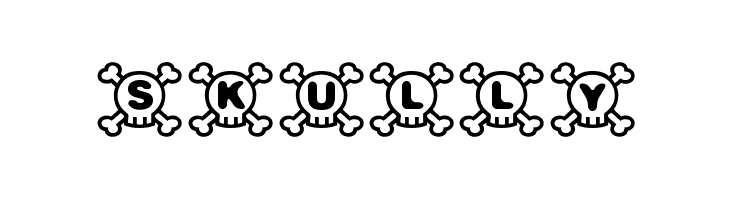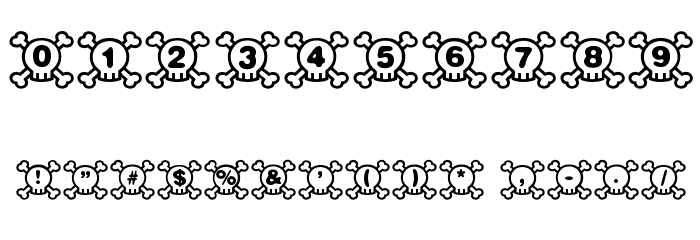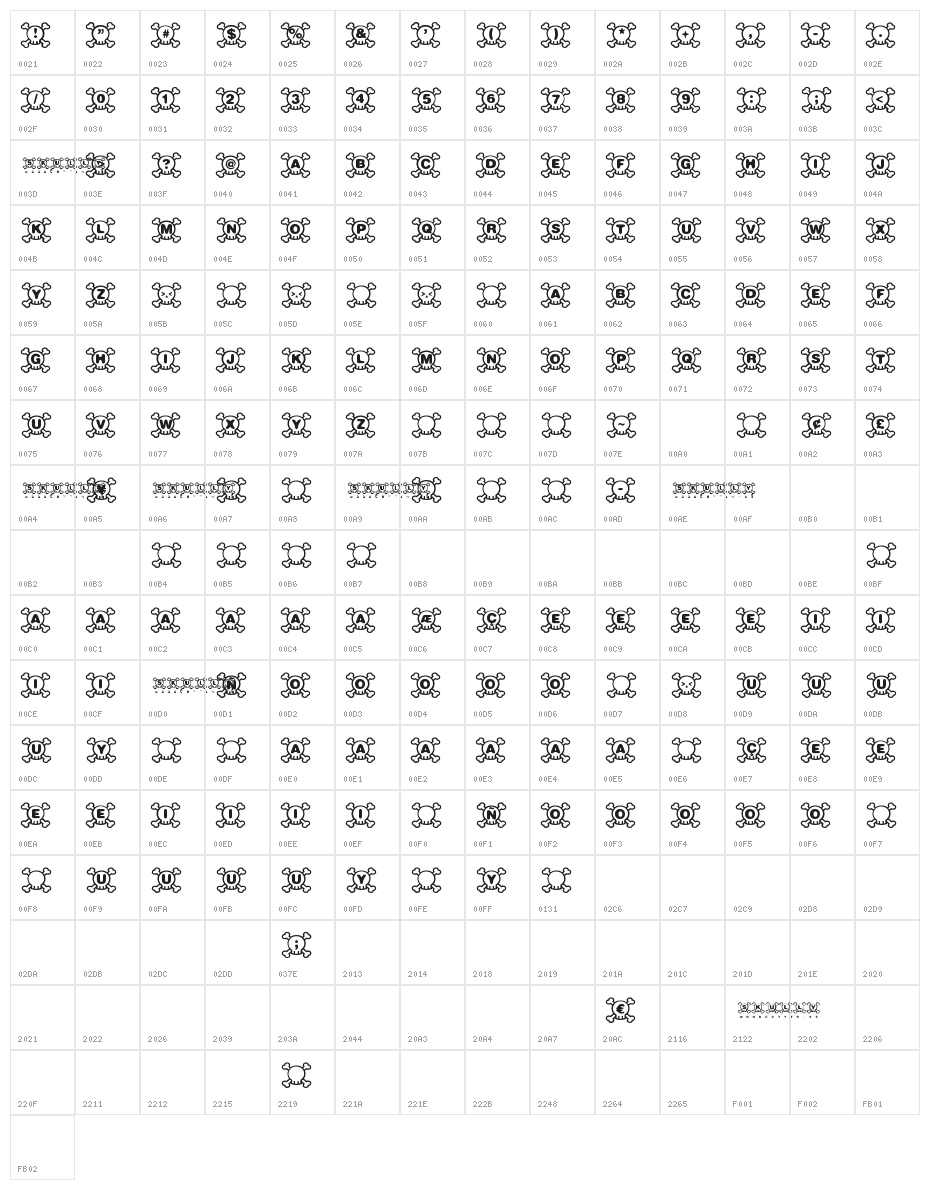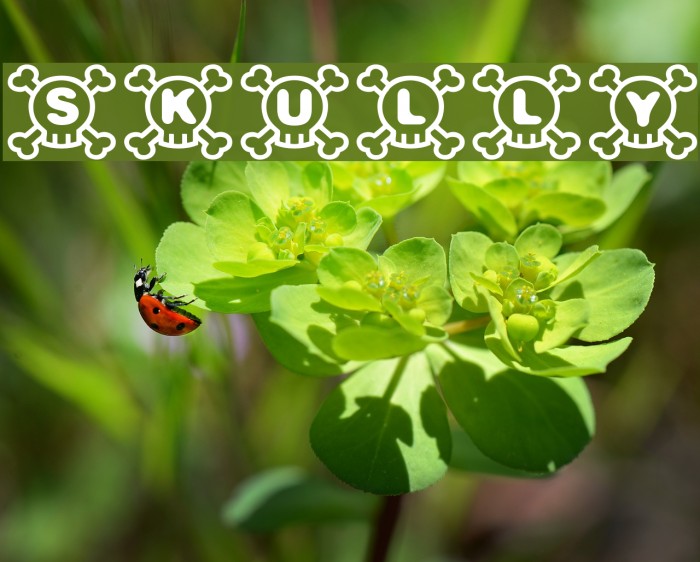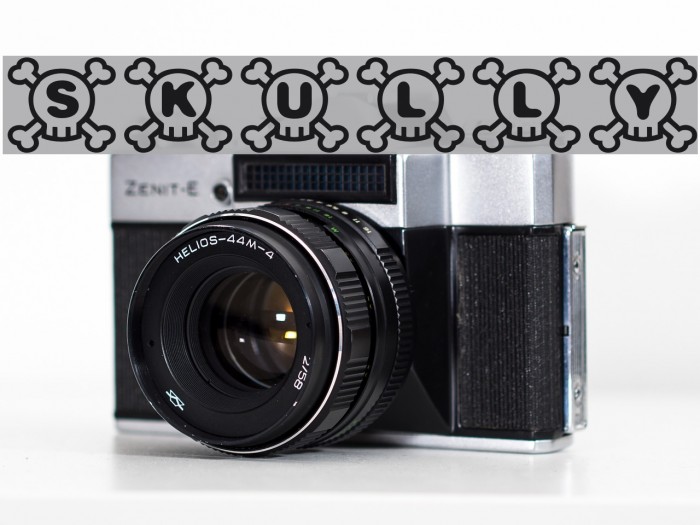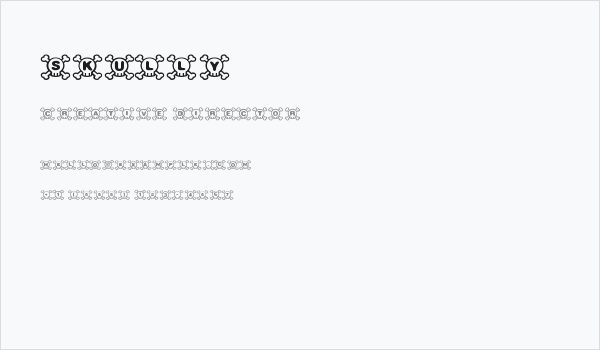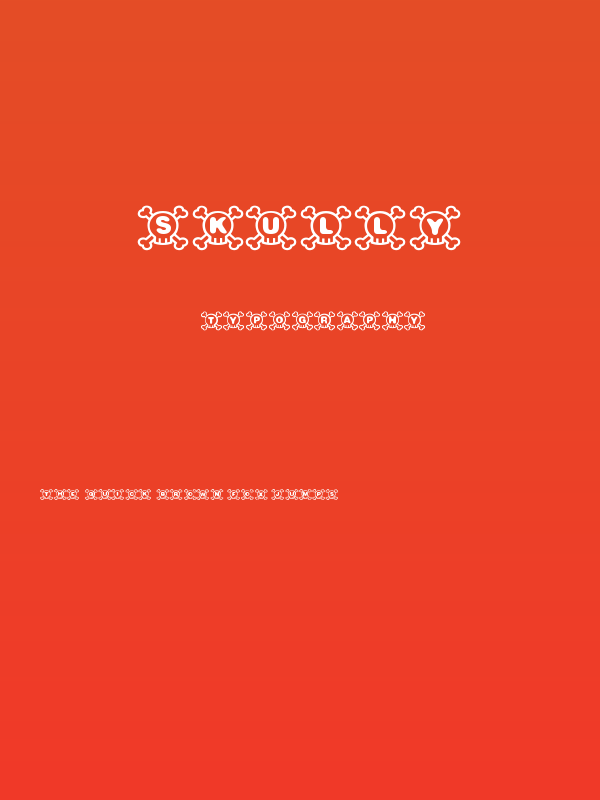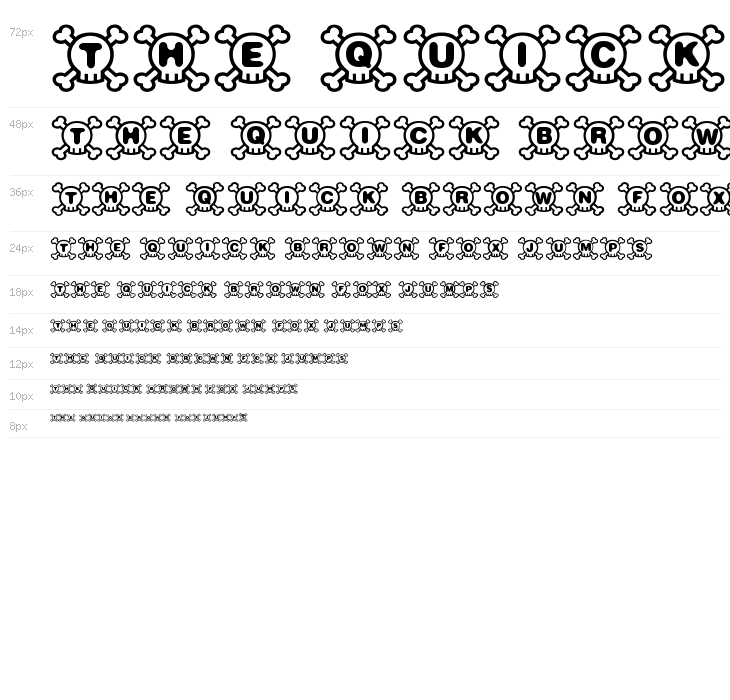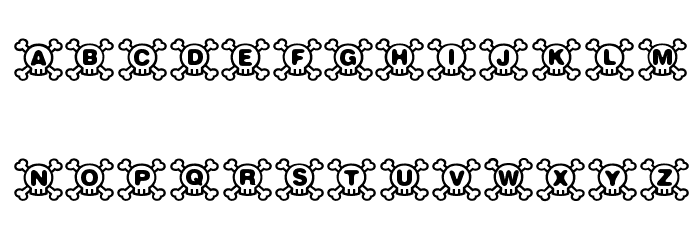
Skully Font
Skully Description
This playful and decorative font features each character encased within a skull and crossbones motif, creating a unique and edgy appearance. The letters and numbers are bold and rounded, providing a clear contrast against the intricate skull design. This font is perfect for themes related to Halloween, pirates, or anything requiring a spooky or adventurous vibe. The consistent use of the skull motif across all characters ensures a cohesive and thematic look, making it ideal for eye-catching designs.
| Proposed Projects | Ideal for Halloween-themed invitations, pirate party banners, spooky merchandise designs, and adventurous branding materials. |